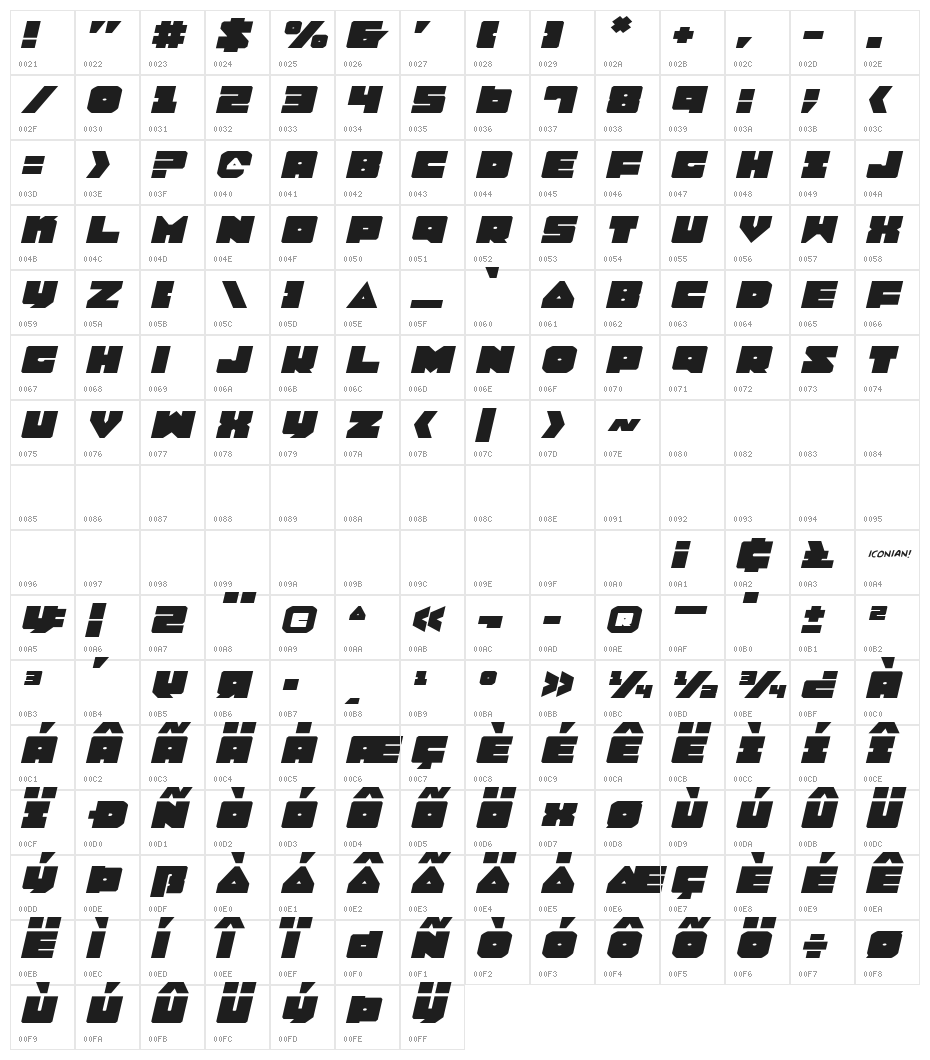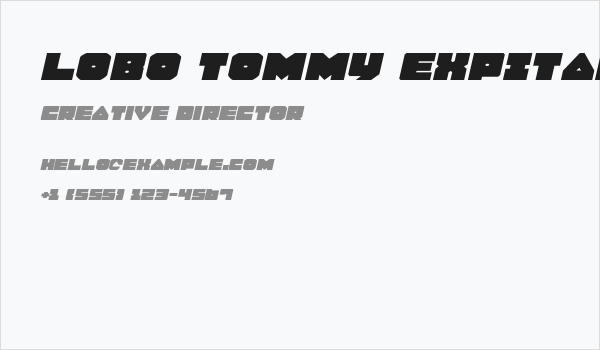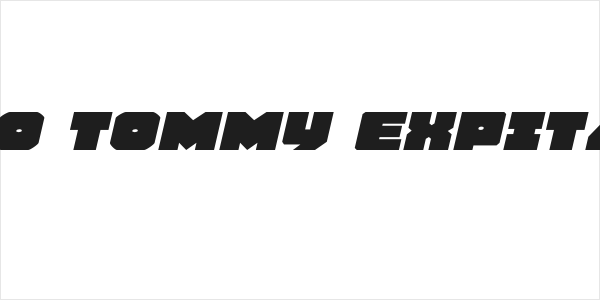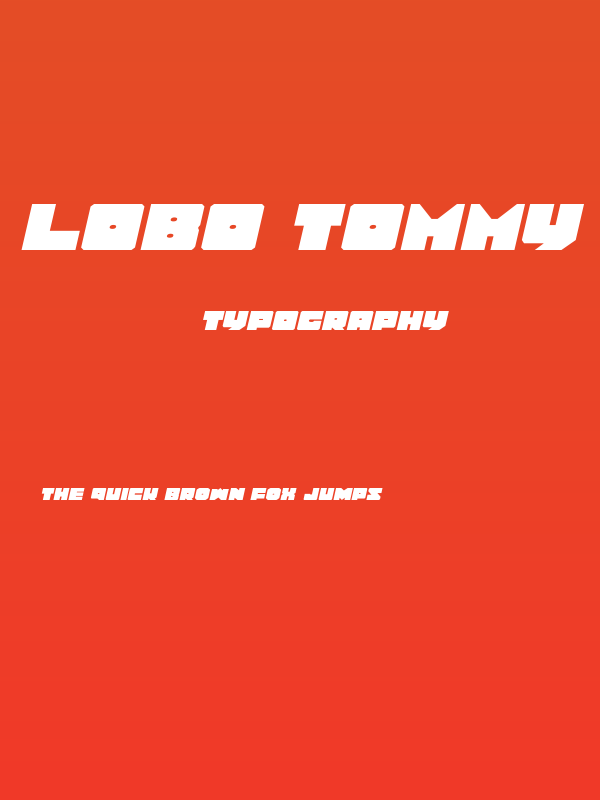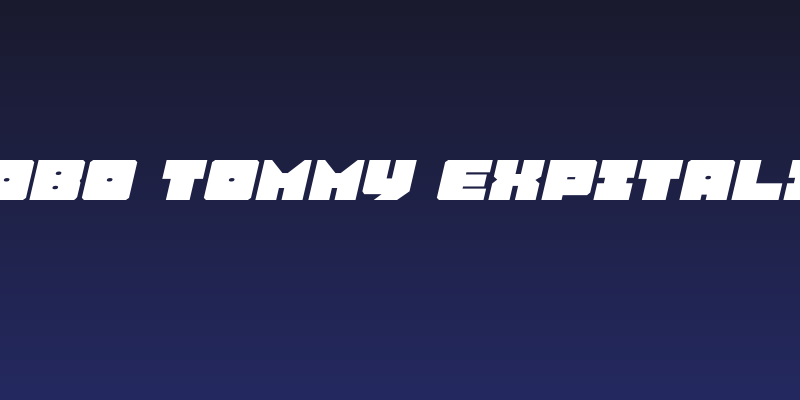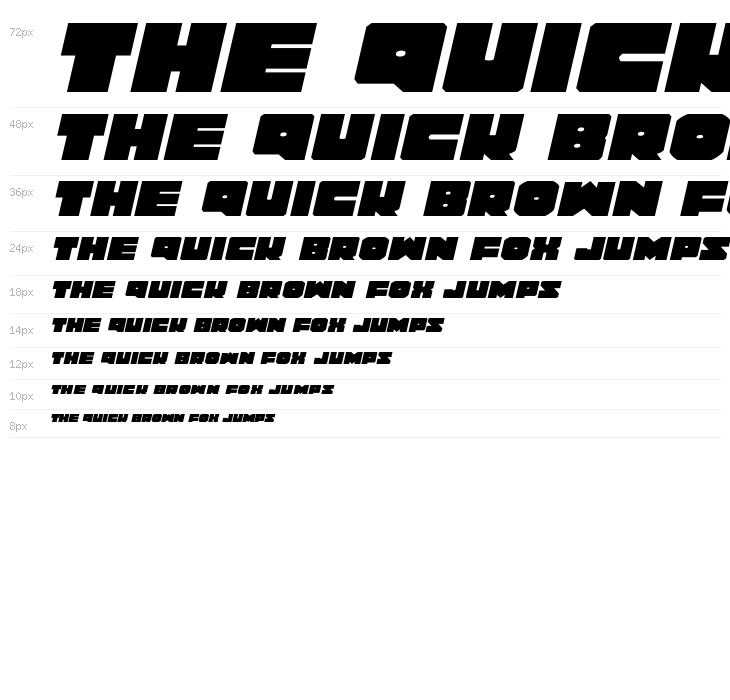
Lobo Tommy ExpItalic Font
Lobo Tommy ExpItalic Description
This font features a bold and dynamic style with a distinctly modern and futuristic appearance. The characters are heavily slanted, giving an italicized effect that enhances its energetic and forward-moving look. Each letter is crafted with sharp angles and a blocky structure, contributing to its robust and impactful presence. The font maintains a consistent weight throughout, emphasizing its boldness. The spacing between characters is tight, which adds to its compact and cohesive feel. This font is well-suited for projects that require a strong visual impact, such as sports branding, video game titles, or dynamic posters.